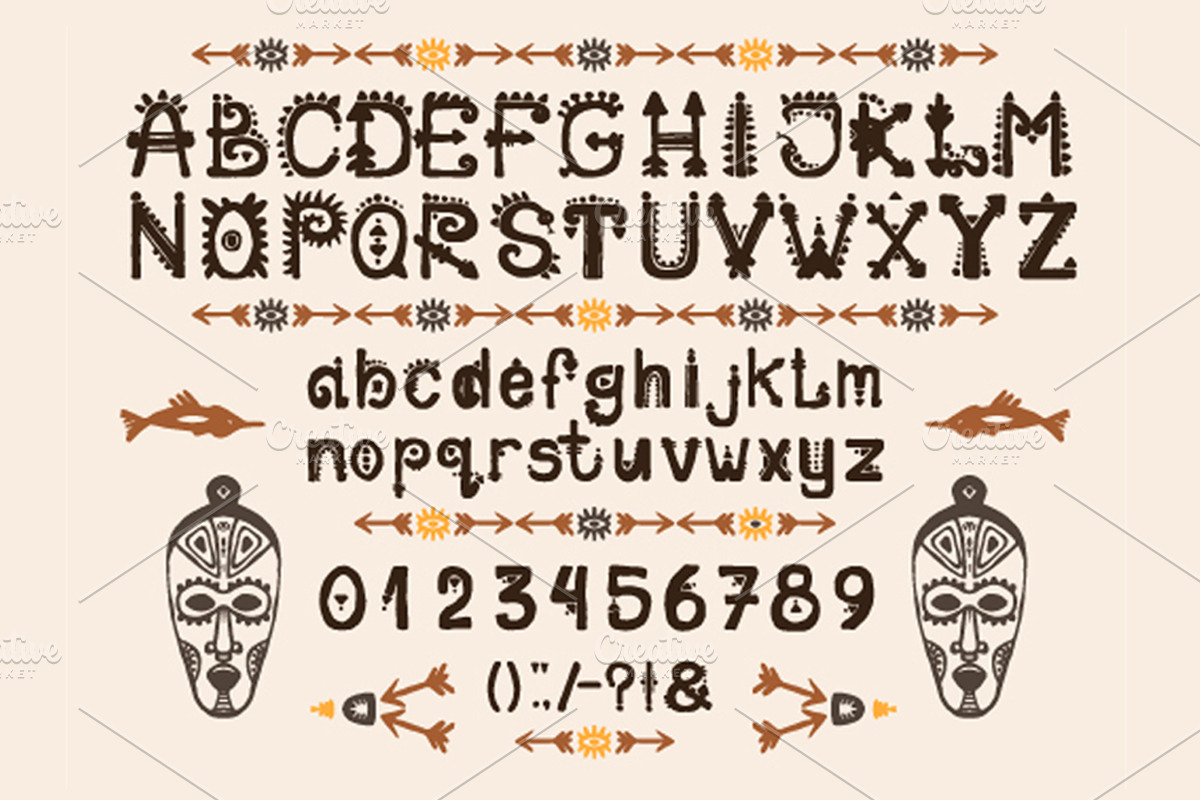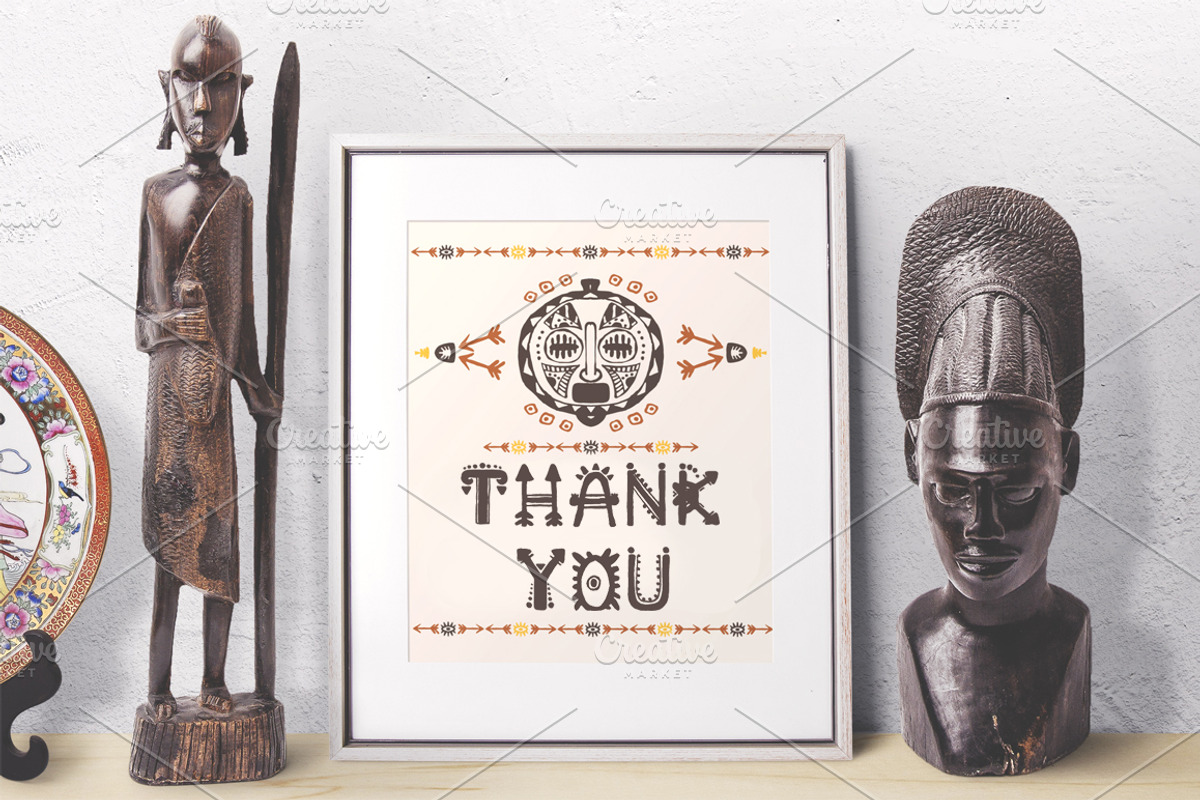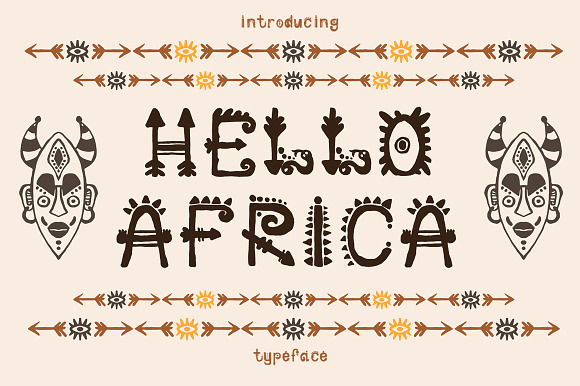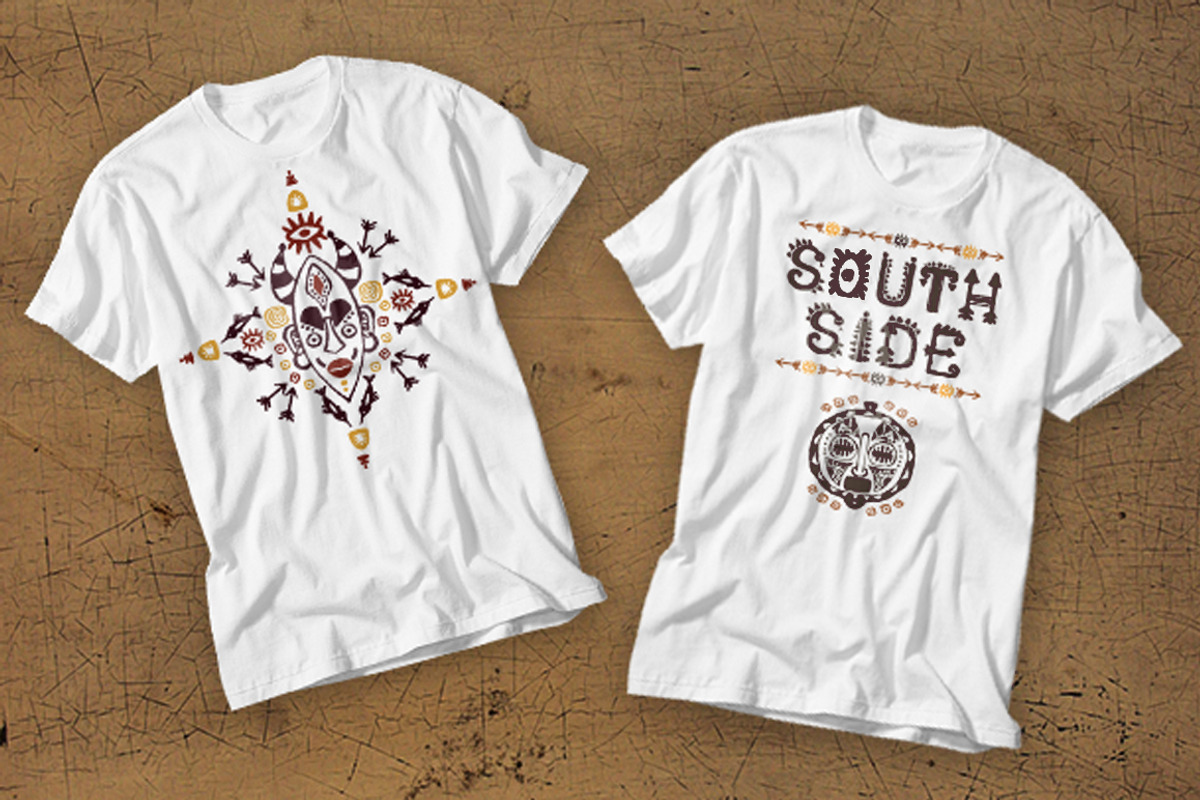
African Font + bonus
Hand drawn Tribal African font typeface and ethnic mask . Letters for your design, wallaper, textile, print. African culture. Fabric afro ornament.
African Font + bonus by Wittmann fits naturally into Branding, posters, packaging, typography.